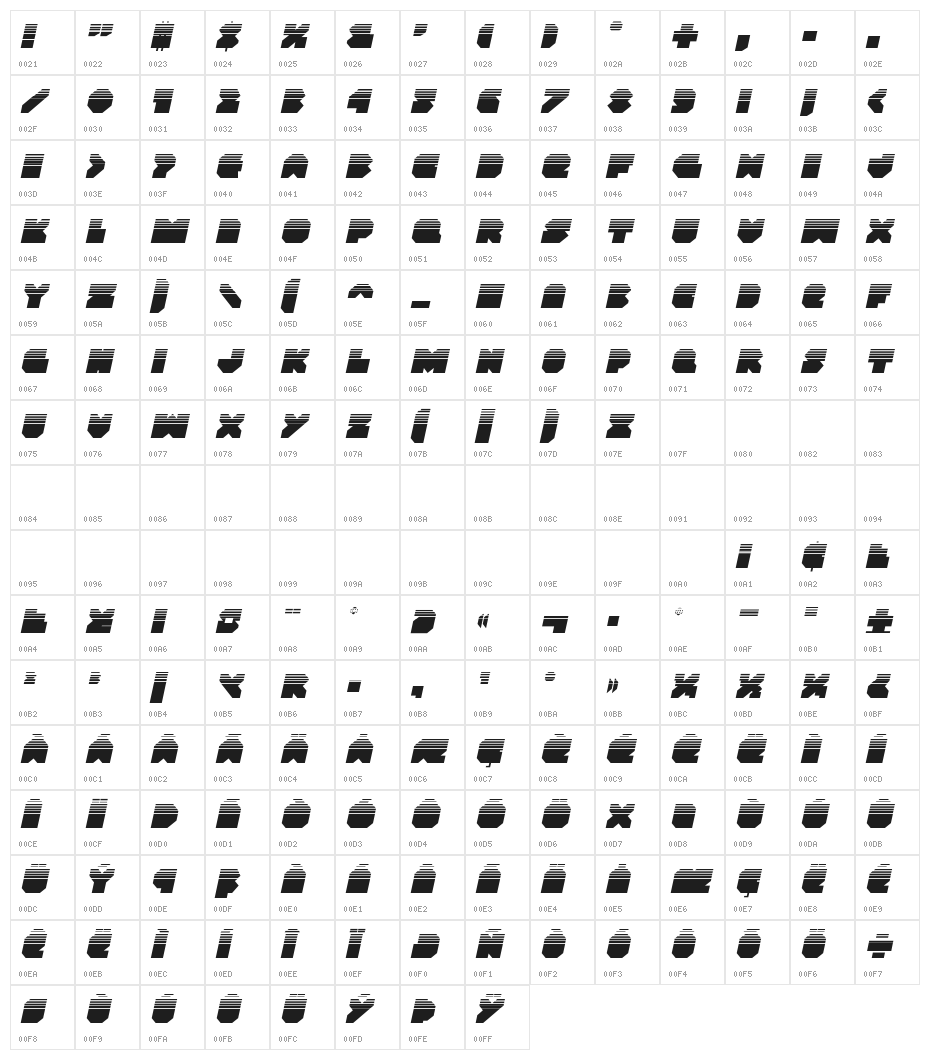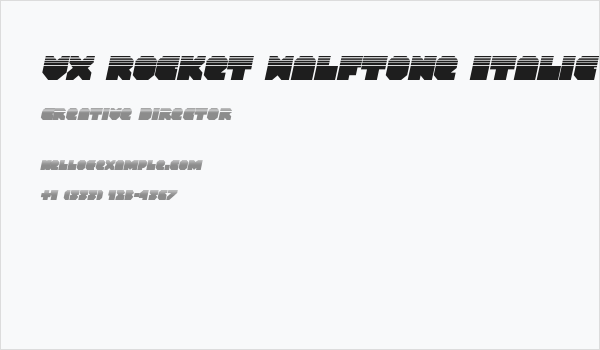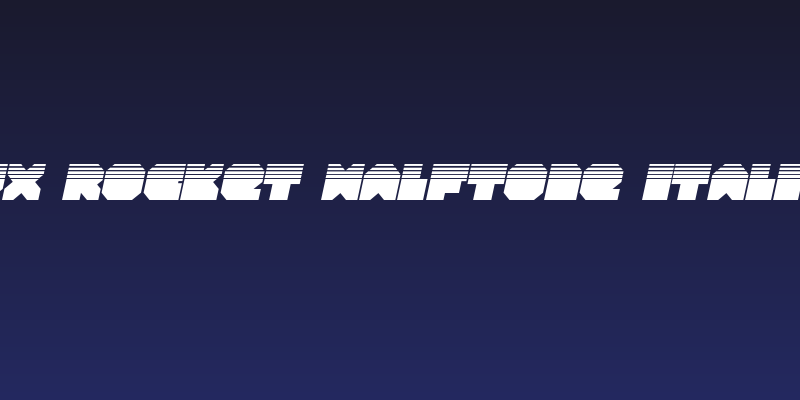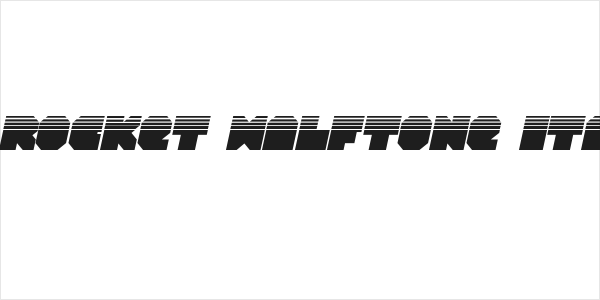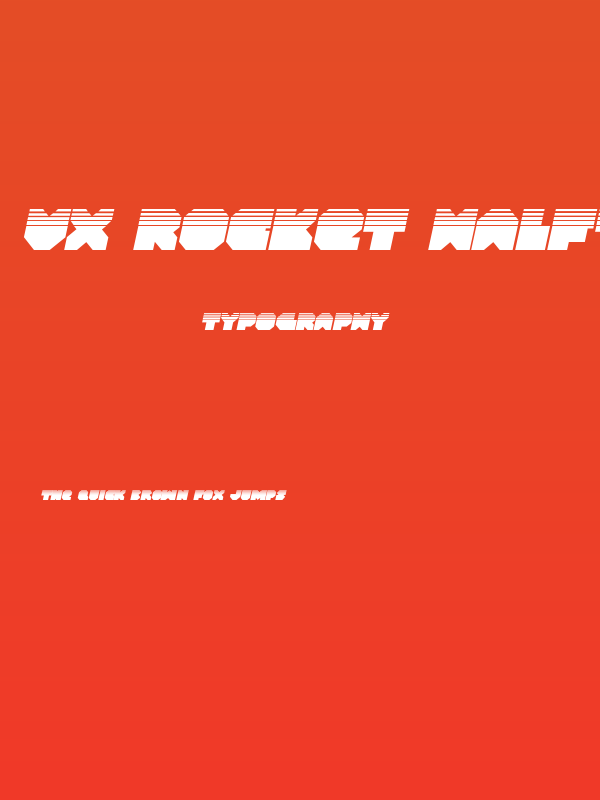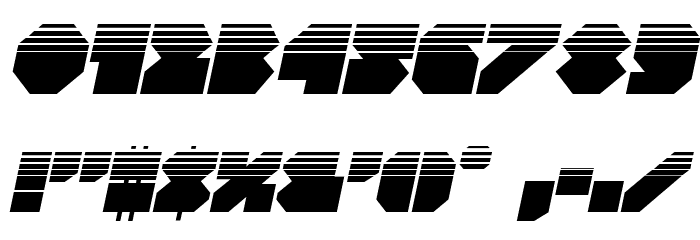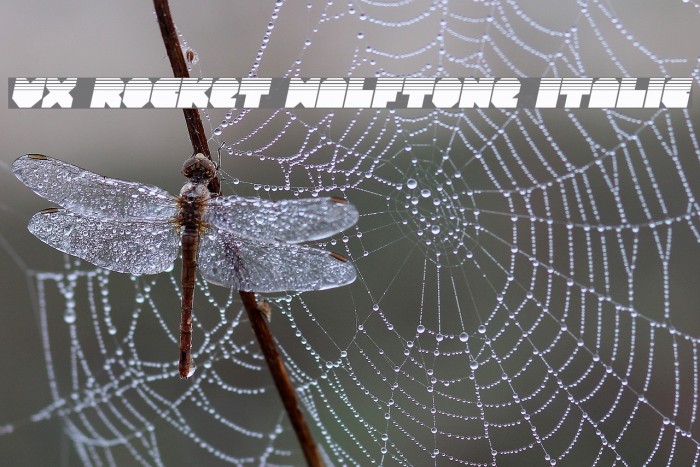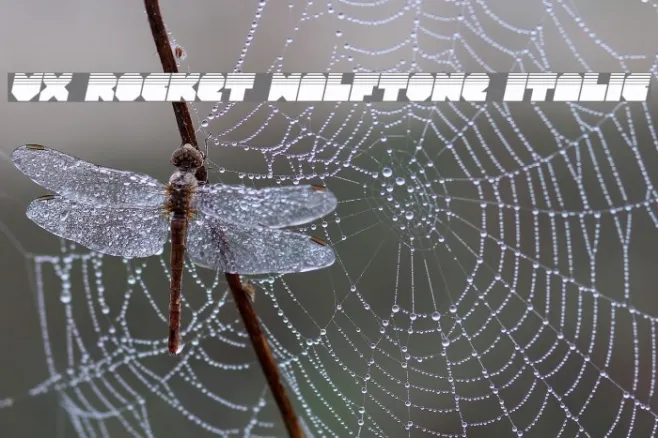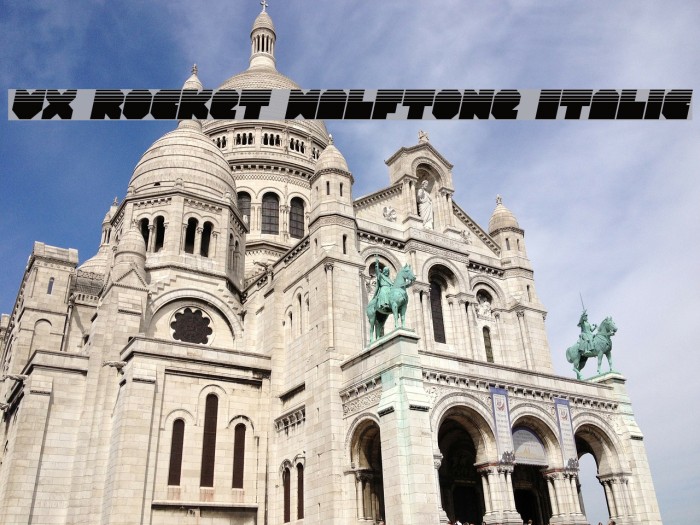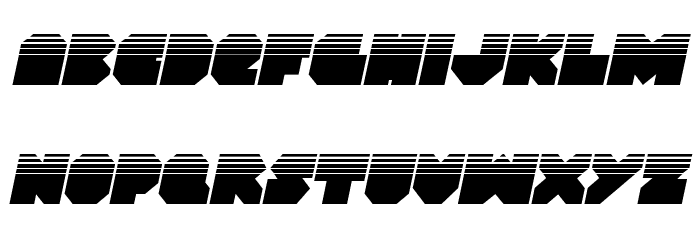
VX Rocket Halftone Italic Font
✎ Futuristic
VX Rocket Halftone Italic Description
This font features a bold, futuristic design with a distinct halftone effect. The characters are constructed with horizontal lines that create a sense of motion and depth, giving it a dynamic and edgy appearance. The italic slant adds to its modern aesthetic, making it suitable for projects that require a strong visual impact. The uppercase and lowercase letters maintain a consistent style, while the numbers and special characters are equally bold and striking. This font is ideal for creating attention-grabbing headlines, posters, and branding materials that need a contemporary and innovative look.
| Proposed Projects | Ideal for futuristic branding, sci-fi posters, and dynamic headlines. |